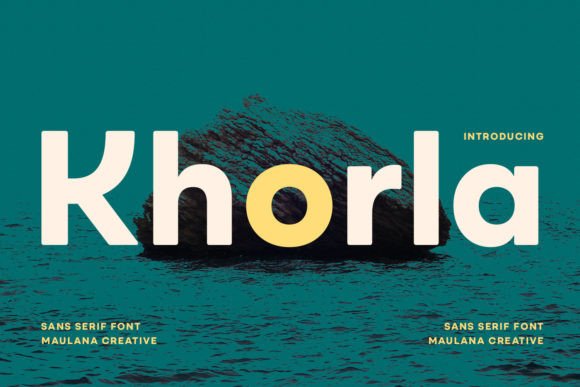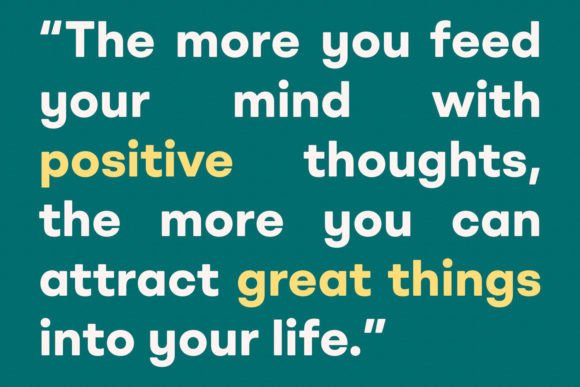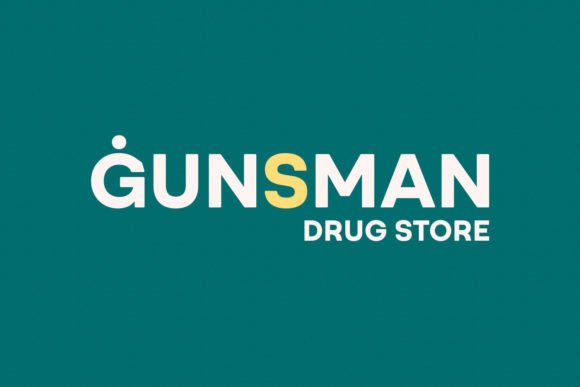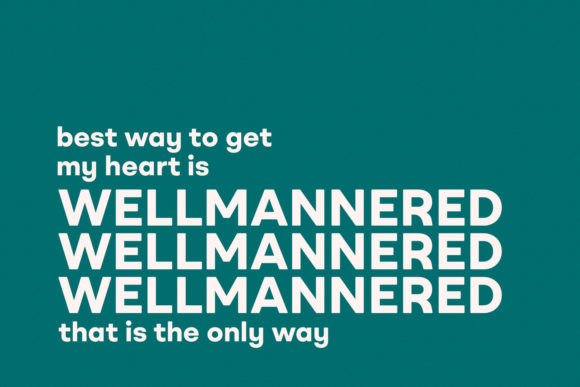
Khorla Font: Simple Sans Serif for Modern Logo Design & Social Media
About the Khorla Font
We are excited to introduce Khorla Font, a must-have typeface for any serious designer. Khorla is a simple semi-geometric sans serif font. It comes with soft edges stroke, a fun character with a bit of ligature, and alternates to give you extra creative work. Khorla is good for logo design, social media, book titles, short text, and even long text and is good for your secondary text combined with a script or serif. Make stunning work with Khorla font!
Khorla’s semi-geometric structure and soft edges lend it a friendly, approachable feel, making it ideal for branding projects that aim for a modern yet approachable aesthetic. It excels in headlines, logos, and short-form content like social media posts and packaging design. However, its slightly quirky ligatures might not be suitable for large blocks of body text or UI elements where readability is paramount.
Consider pairing Khorla with a classic serif like Garamond for a sophisticated contrast, or a clean sans-serif like Montserrat for a contemporary feel. For a more playful effect, a script font like Allura could work well, especially for emphasizing certain words or phrases. Avoid pairing it with overly ornate or heavily embellished fonts that would clash with Khorla’s clean lines.
Its friendly yet modern personality suits brands focused on technology, lifestyle, and creative industries seeking a balance between approachability and visual impact.
Khorla Font Usage Examples
Khorla Font Example